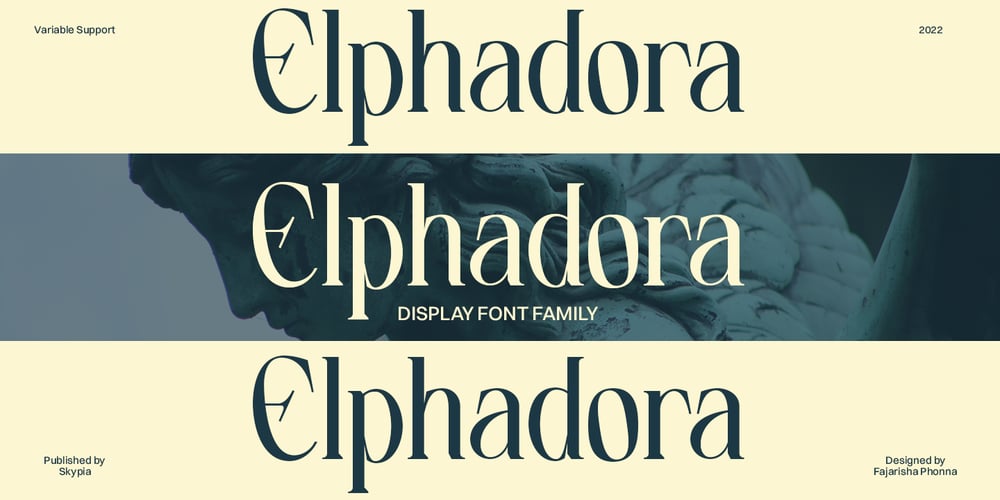
Elphadora Font Family was designed by Fajarisha Phonna and published by Skypia. Elphadora contains 12 styles and family package options. Elphadora is a versatile, high contrast display serif font features a mixed modern-classic design. Elphadora support multilingual languages, numbers, punctuation and alternative-ligatures.Create unique & beautiful logotype, use it as an elegant solution for your next magazine layout, or choose Elphadora for any graphics that require a sleek look with a elegant flair.I really hope you’ll get pleasure using Elphadora font and it will be perfect addition to your font collection! If you have some questions, please write me a letter!Thank You, Skypia.